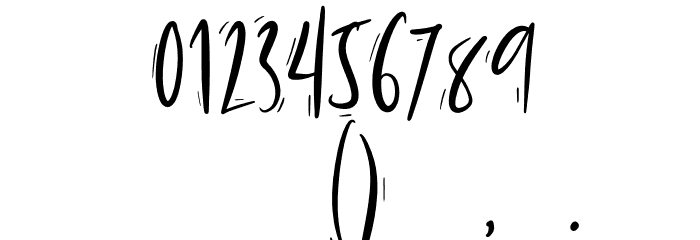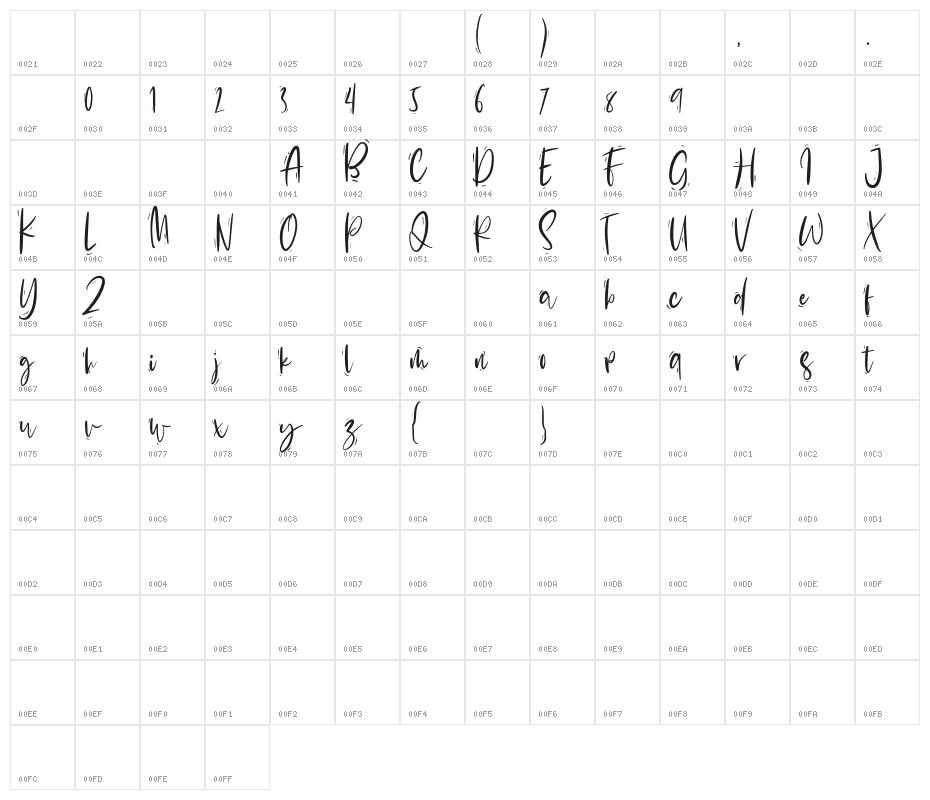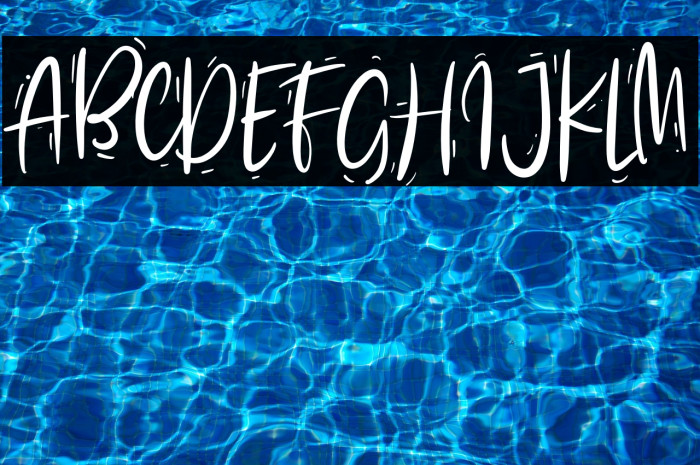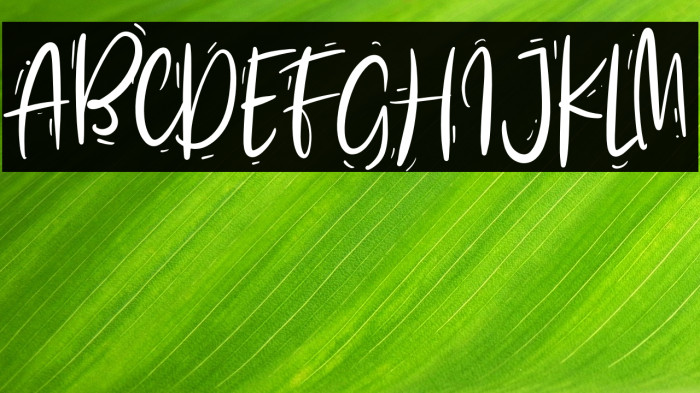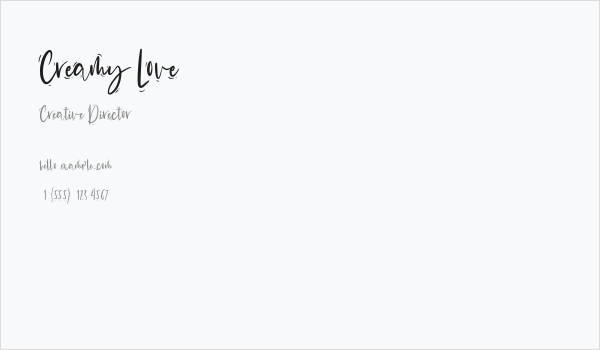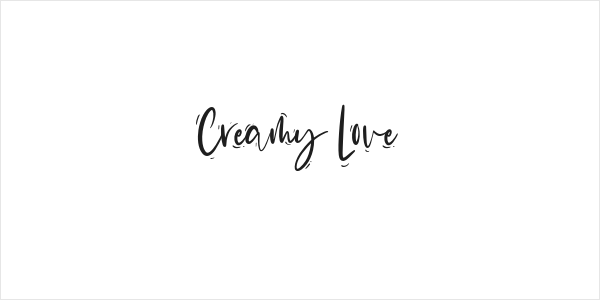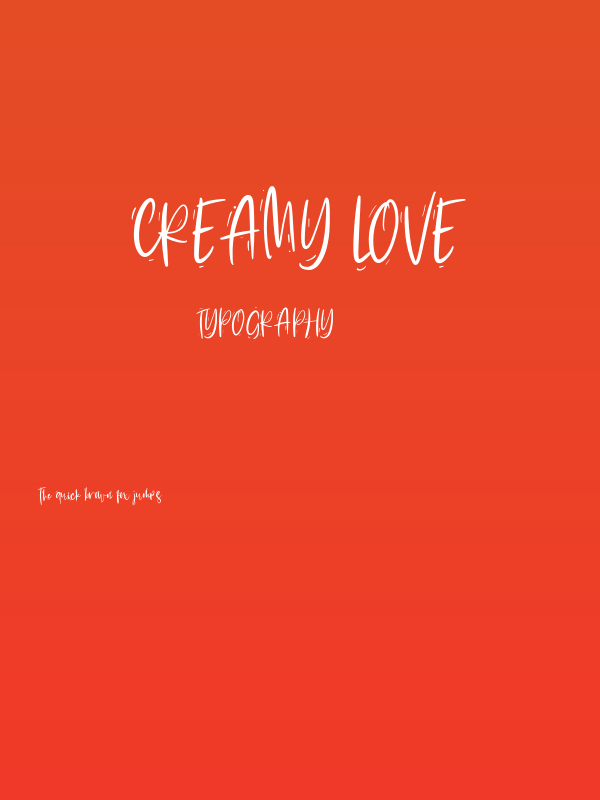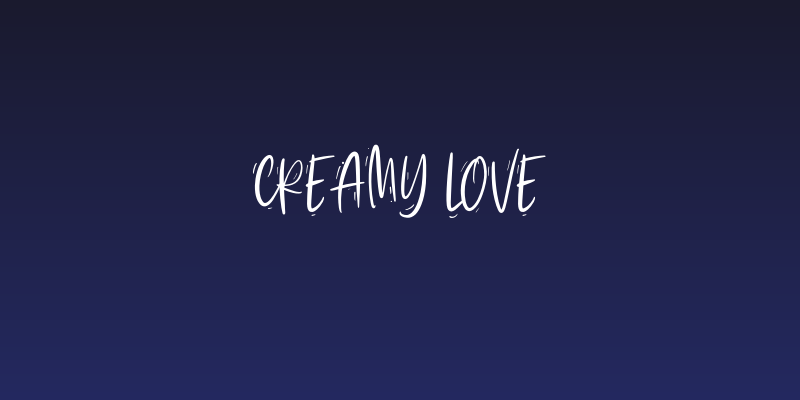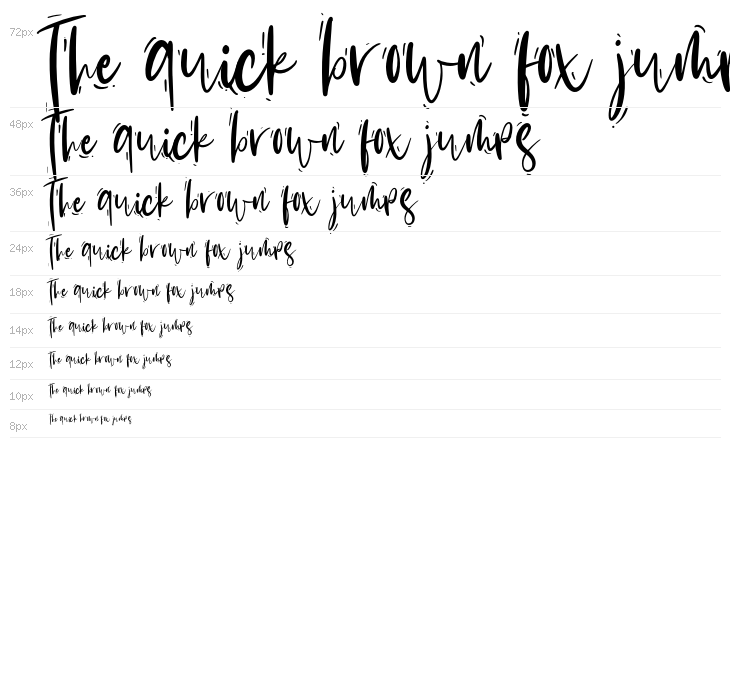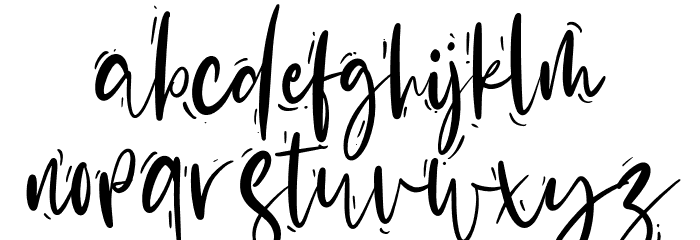
Creamy Love Font
Creamy Love Description
This font exudes a playful and energetic vibe with its handwritten style. The letters are characterized by a fluid, cursive design that mimics natural handwriting, giving it a personal and informal touch. The strokes are varied in thickness, adding a dynamic and lively feel to the text. The uppercase letters are tall and slightly narrow, while the lowercase letters maintain a consistent flow with smooth curves and loops. The numbers and special characters follow the same handwritten aesthetic, ensuring a cohesive look across all elements. This font is perfect for projects that require a touch of personality and creativity.
| Use Case | Logos, Invitations, Personal branding |
| Proposed Projects | Ideal for greeting cards, invitations, personal branding, and creative projects. |